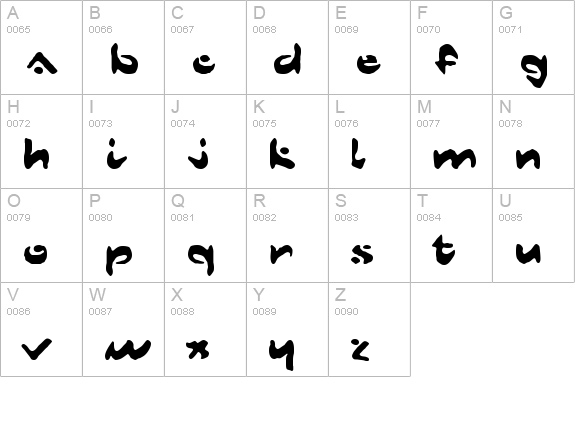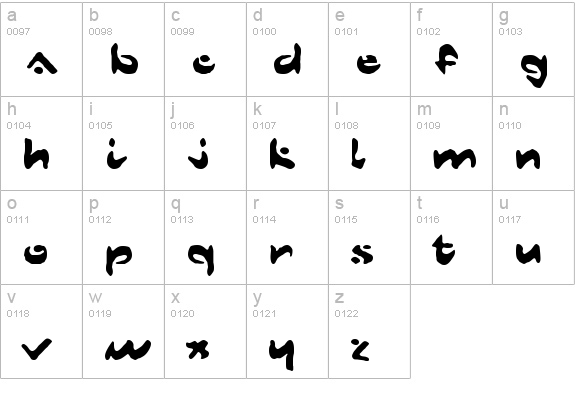
Introducing Dust Mites font - a whimsical and playful typeface that adds a touch of charm to your designs. This unique font features quirky shapes and irregular lines that give it a handmade and organic feel. Perfect for adding a fun and casual vibe to your projects, Dust Mites font is sure to make your text stand out. Best of all, Dust Mites font is completely free to download at FontsMarket.com. Whether you're working on a poster, invitation, or branding project, this font is a versatile choice that will help you create eye-catching designs. Don't miss out on the opportunity to add a touch of personality to your work with Dust Mites font - download it for free today!